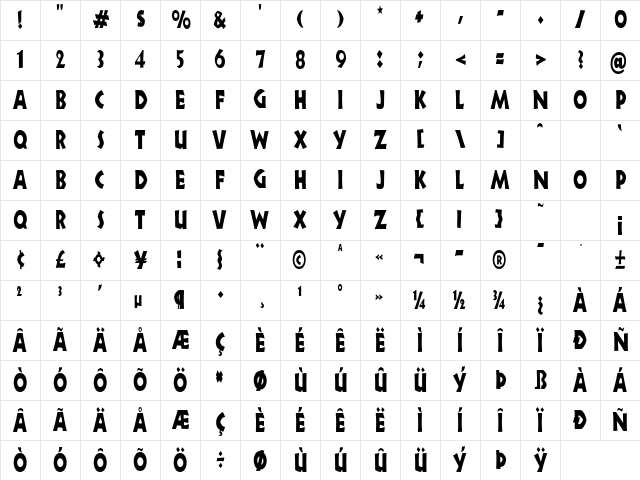
ZorbaCondensed Regular
ZorbaCondensed Family
ZorbaCondensed Regular
Complete ZorbaCondensed Regular glyph index. Displaying only characters natively supported by ZorbaCondensed Regular font.
Design Context for ZorbaCondensed
ZorbaCondensed is a composed and adaptable typeface that performs quietly and consistently across a wide range of design contexts. Its narrow stance lets it pack a punch even in space-constrained designs.